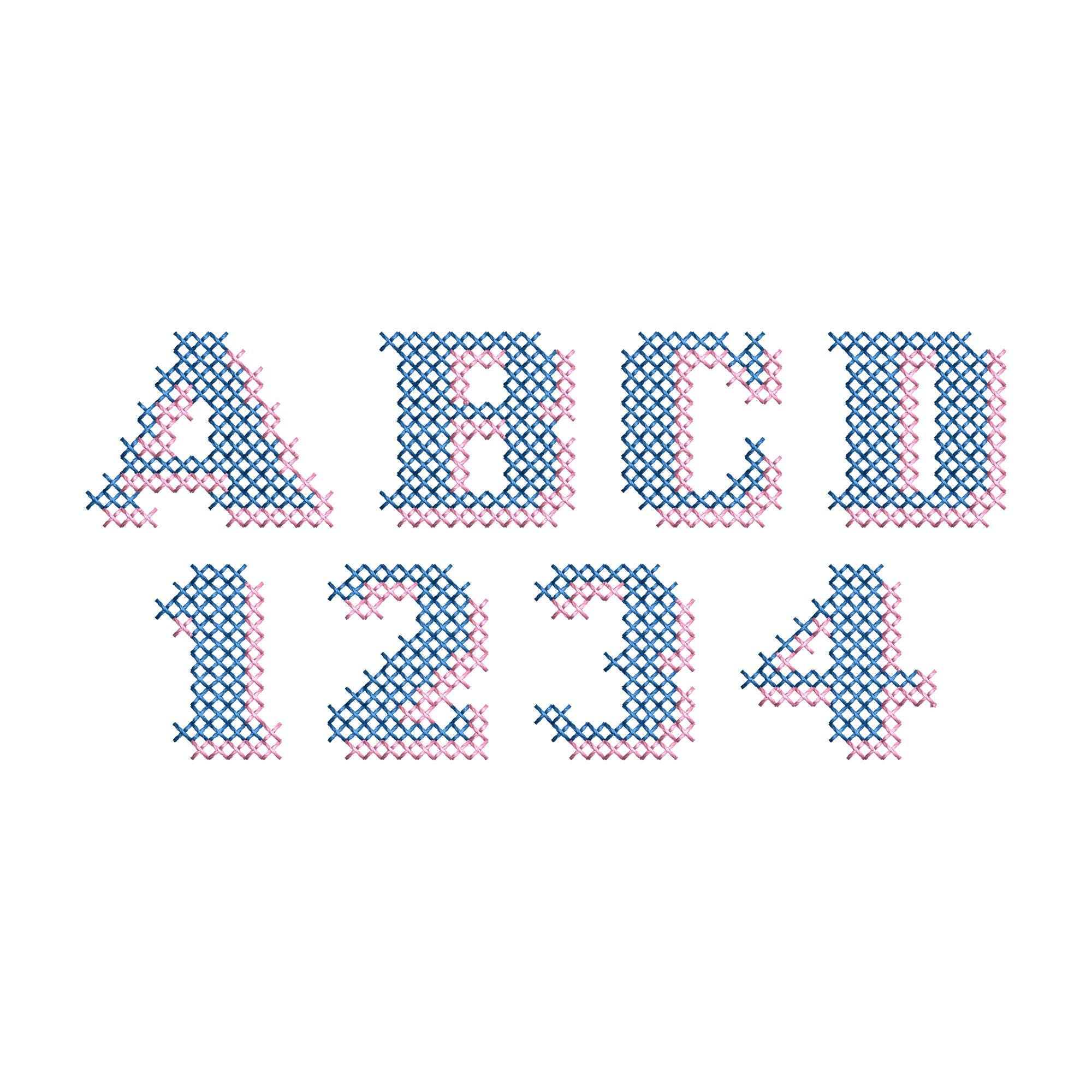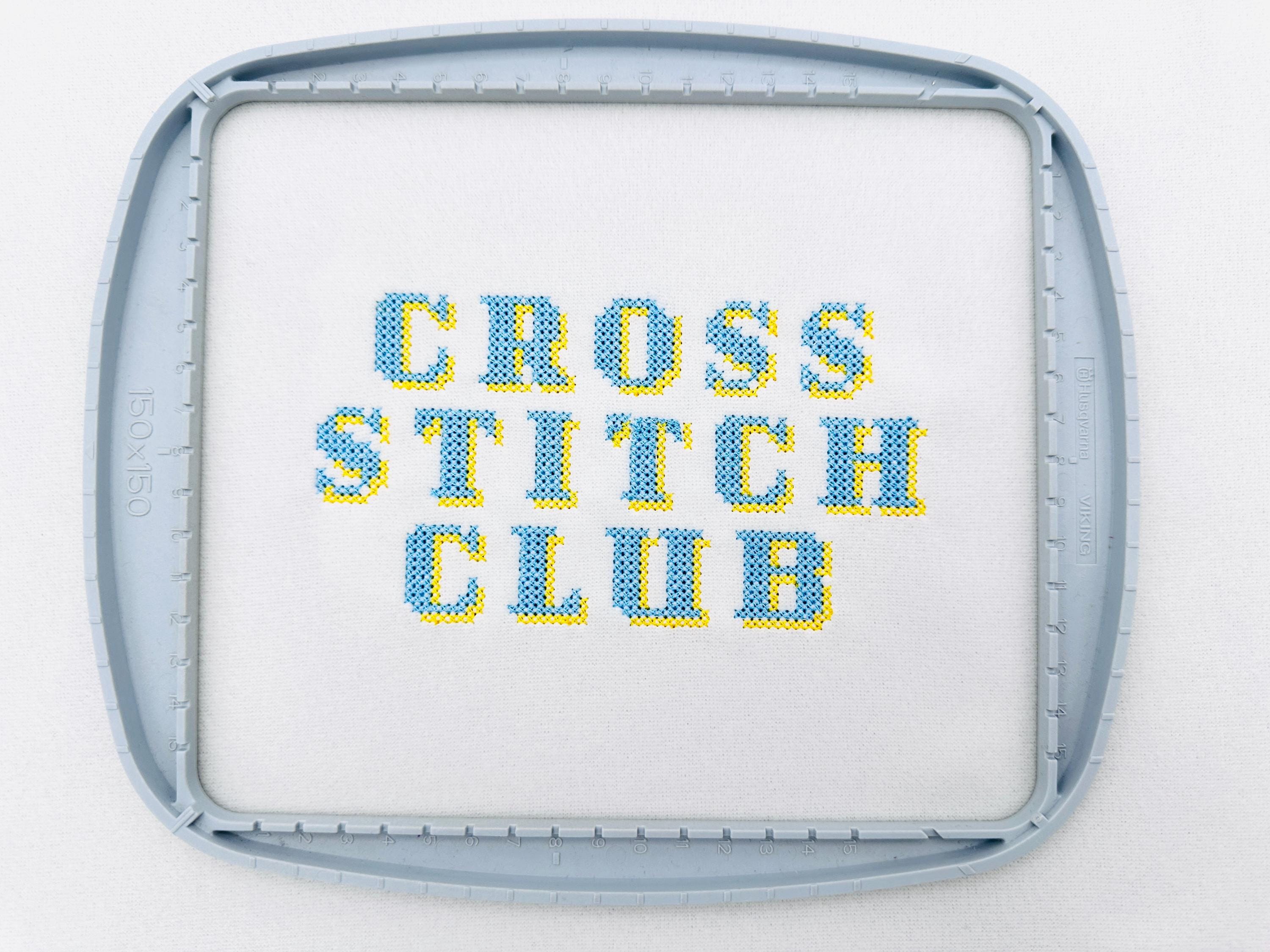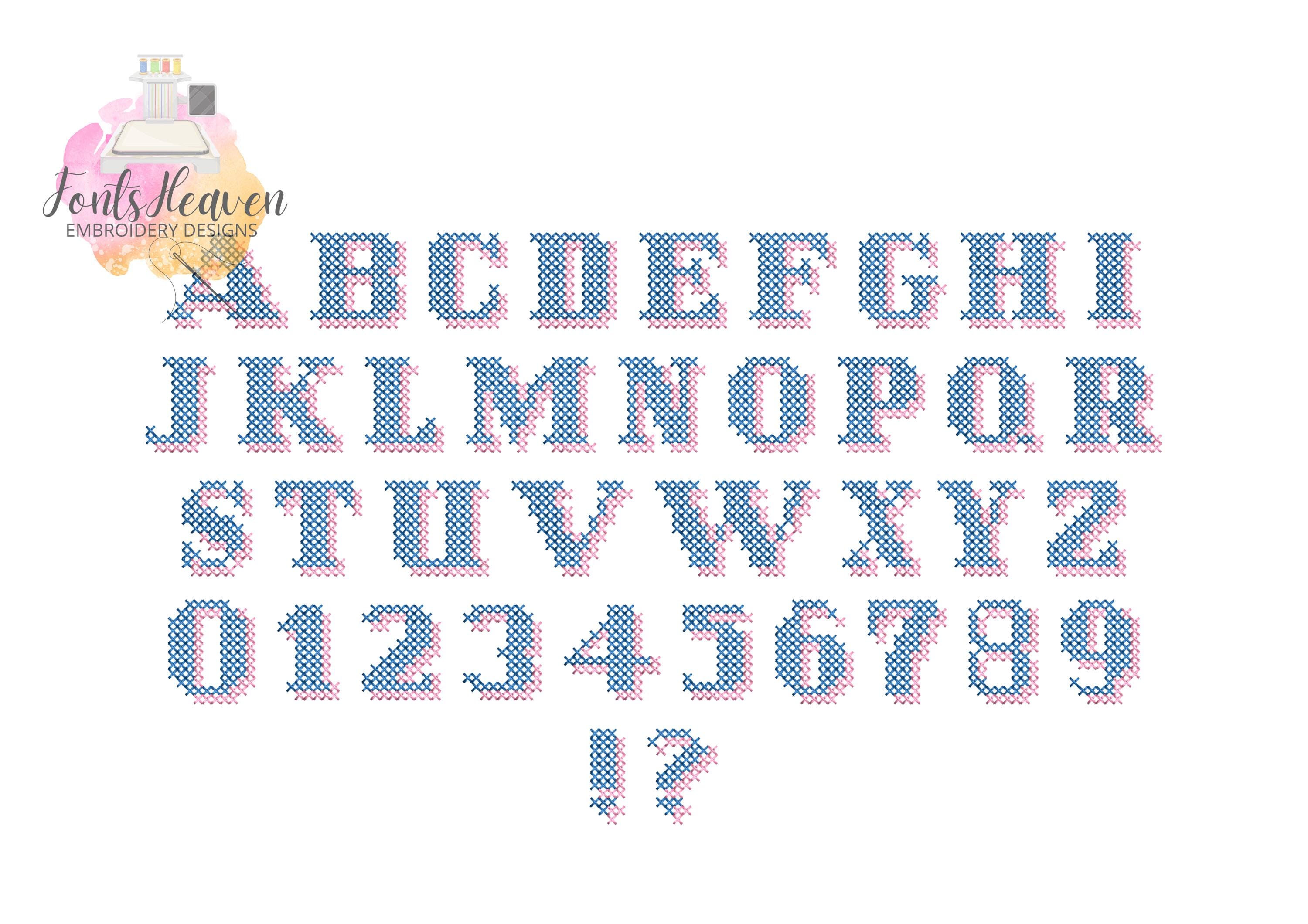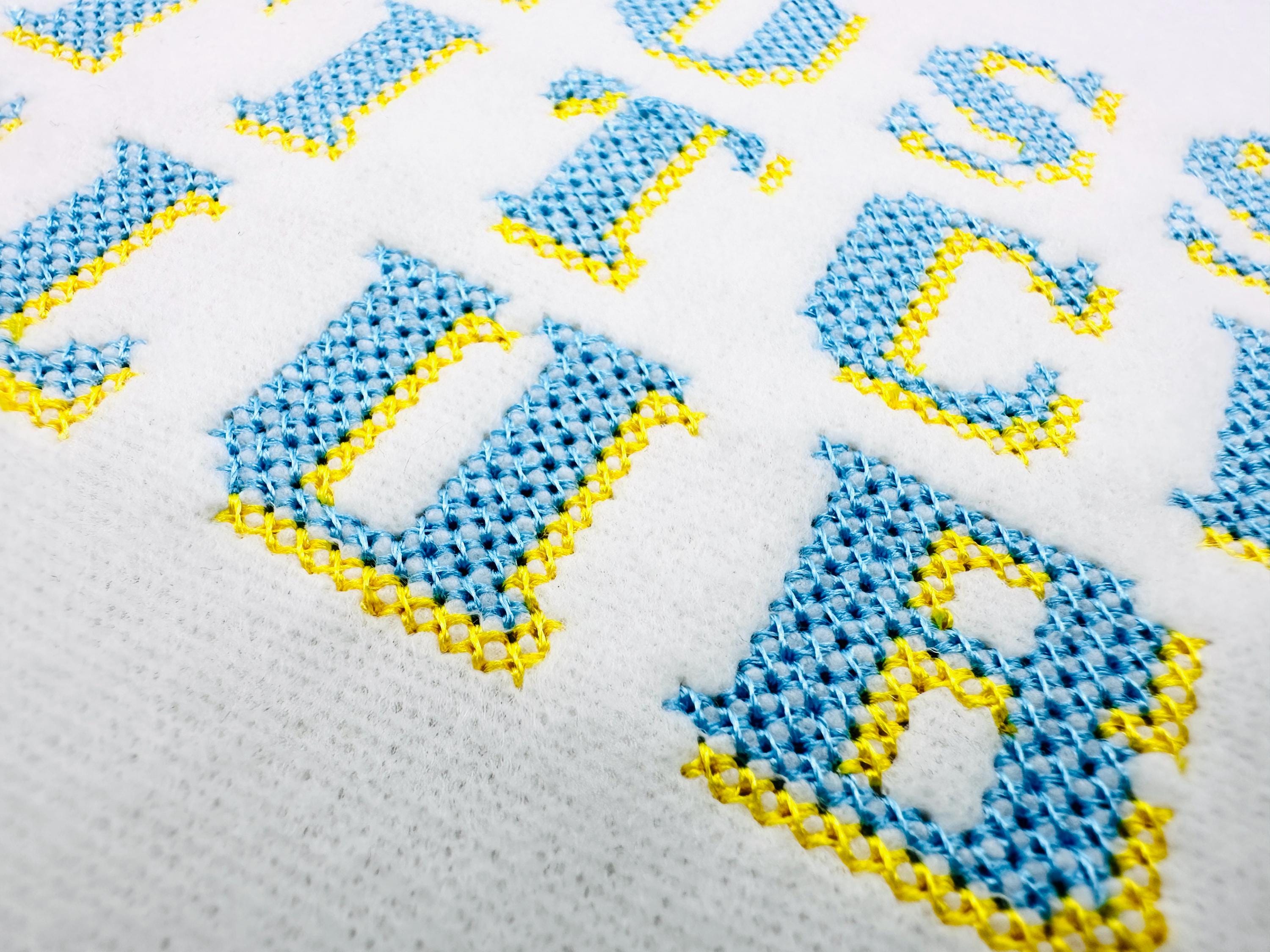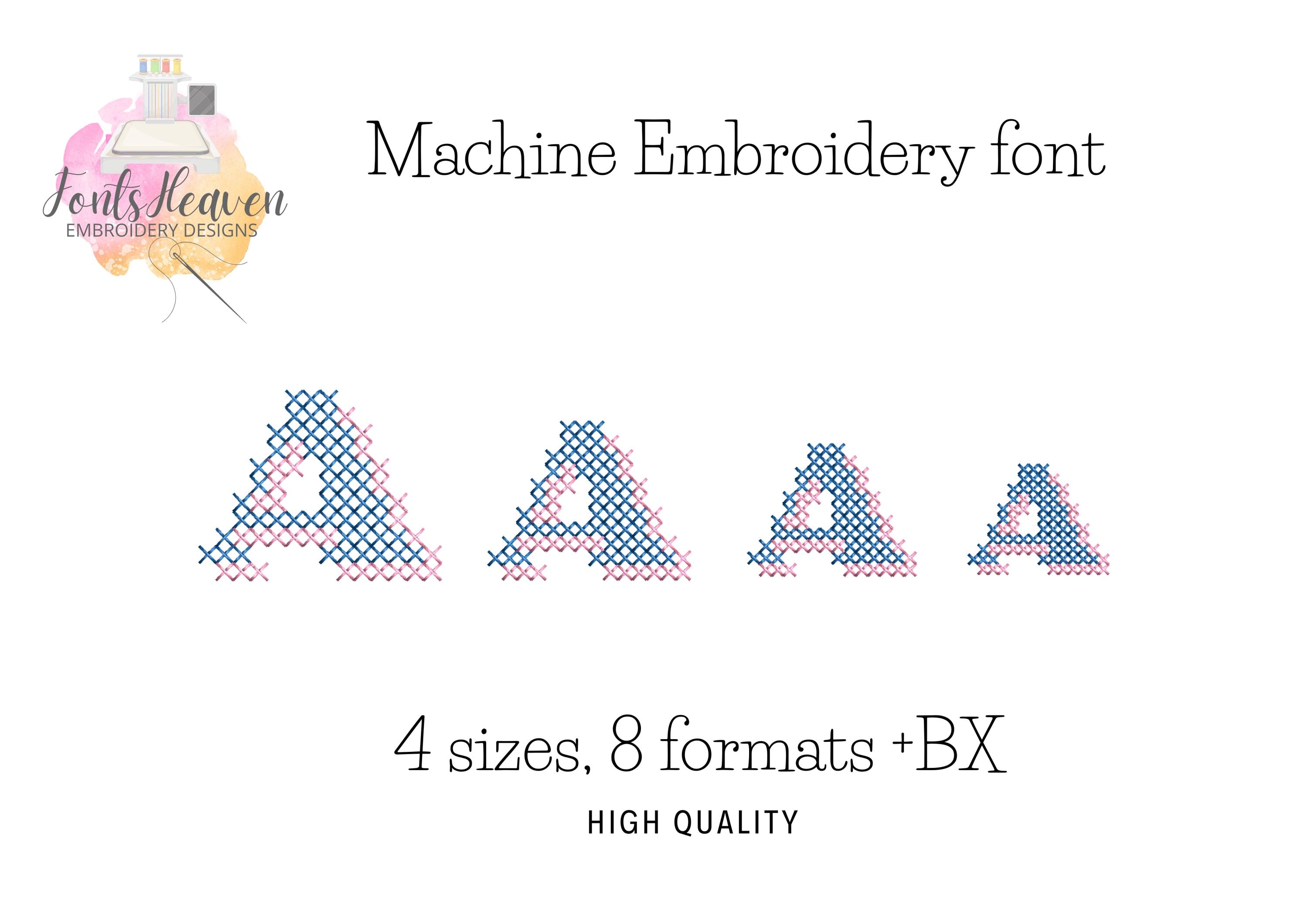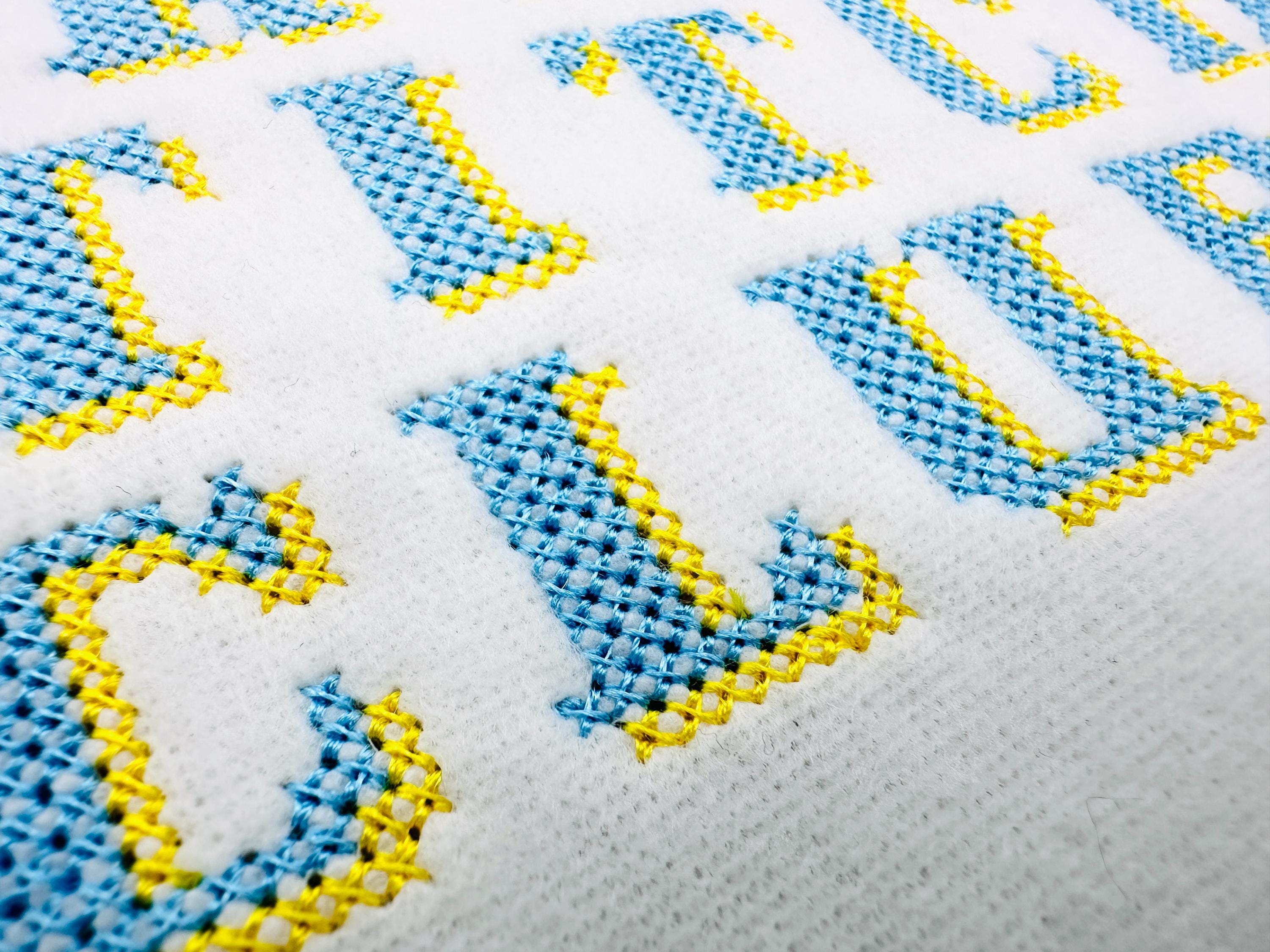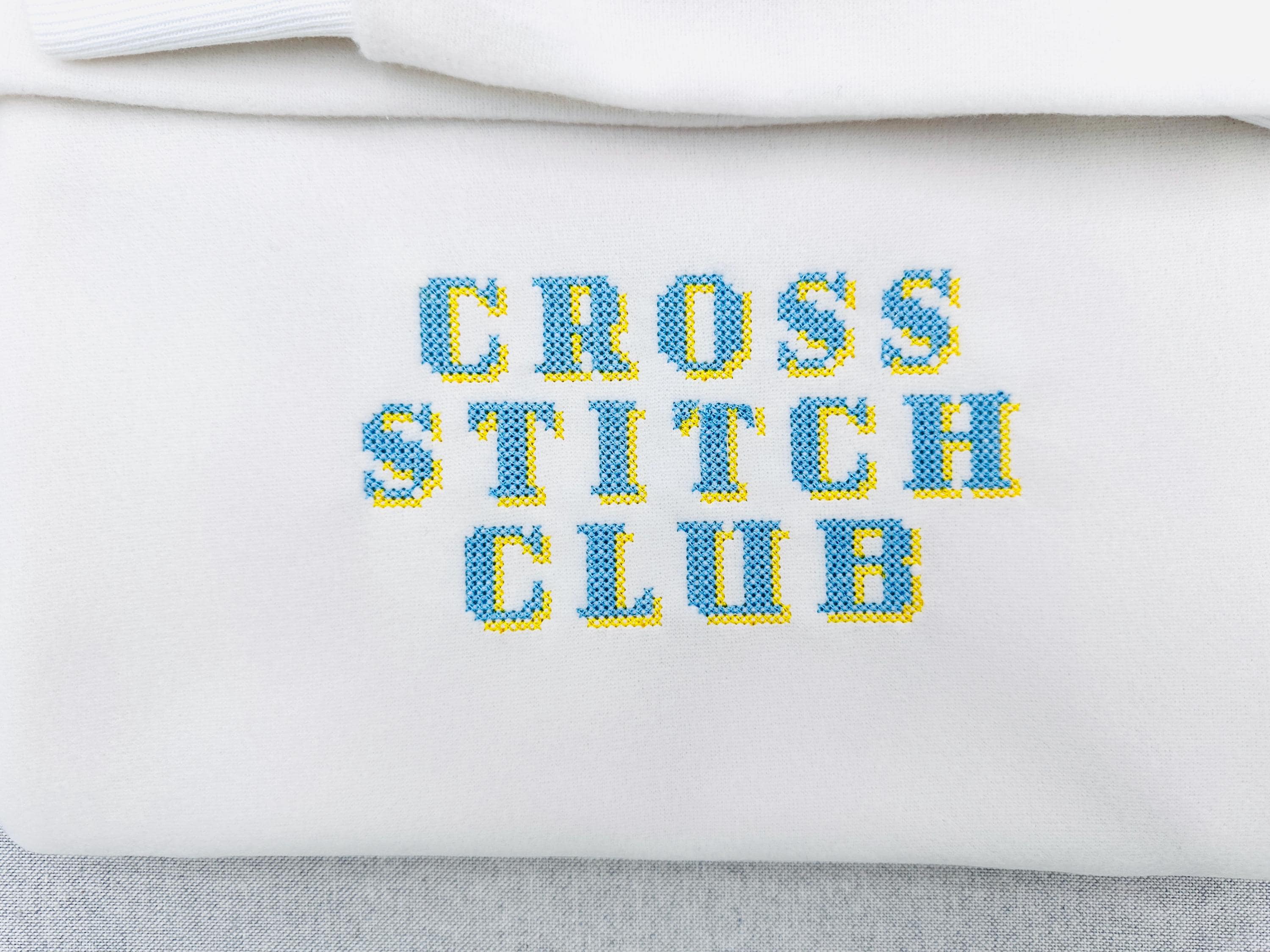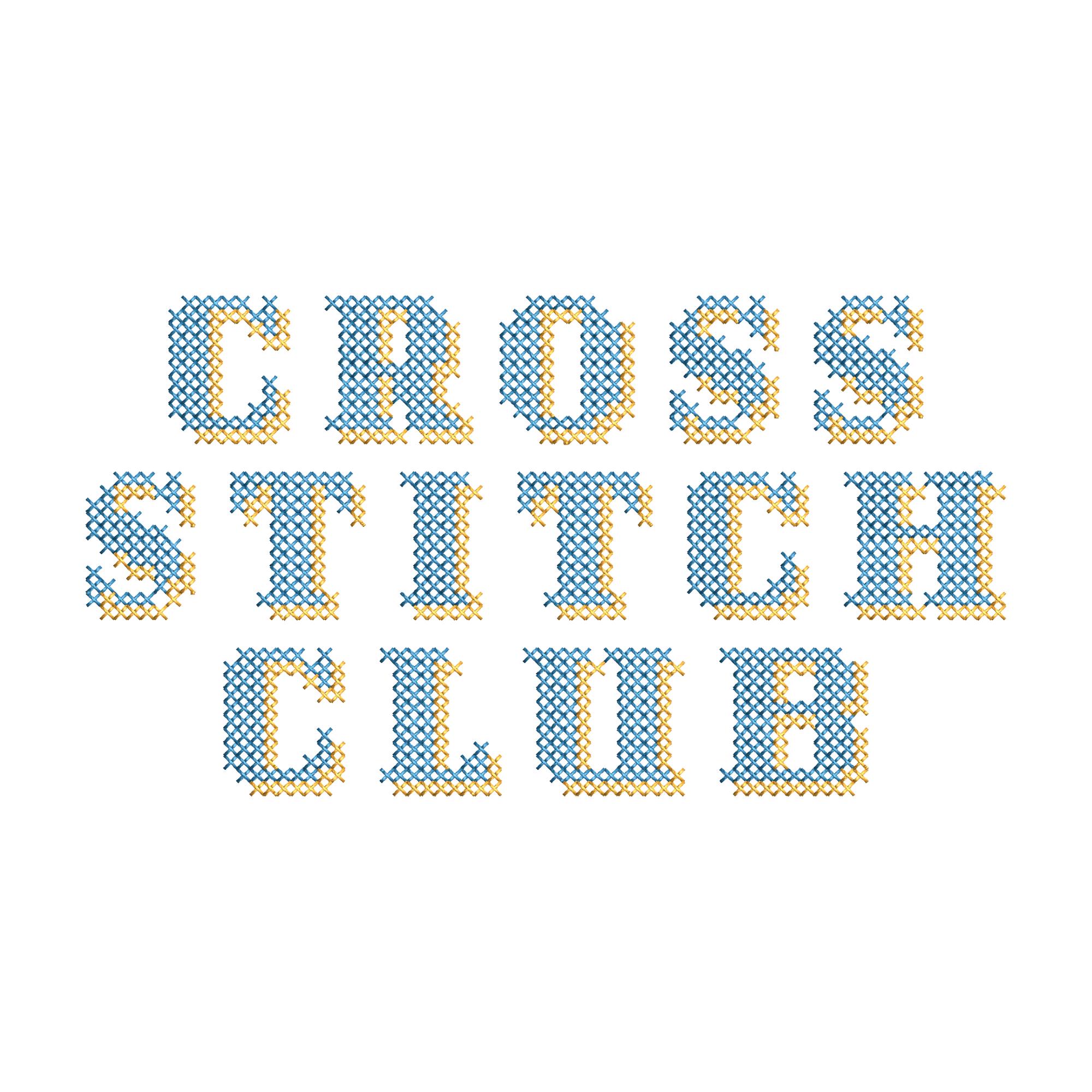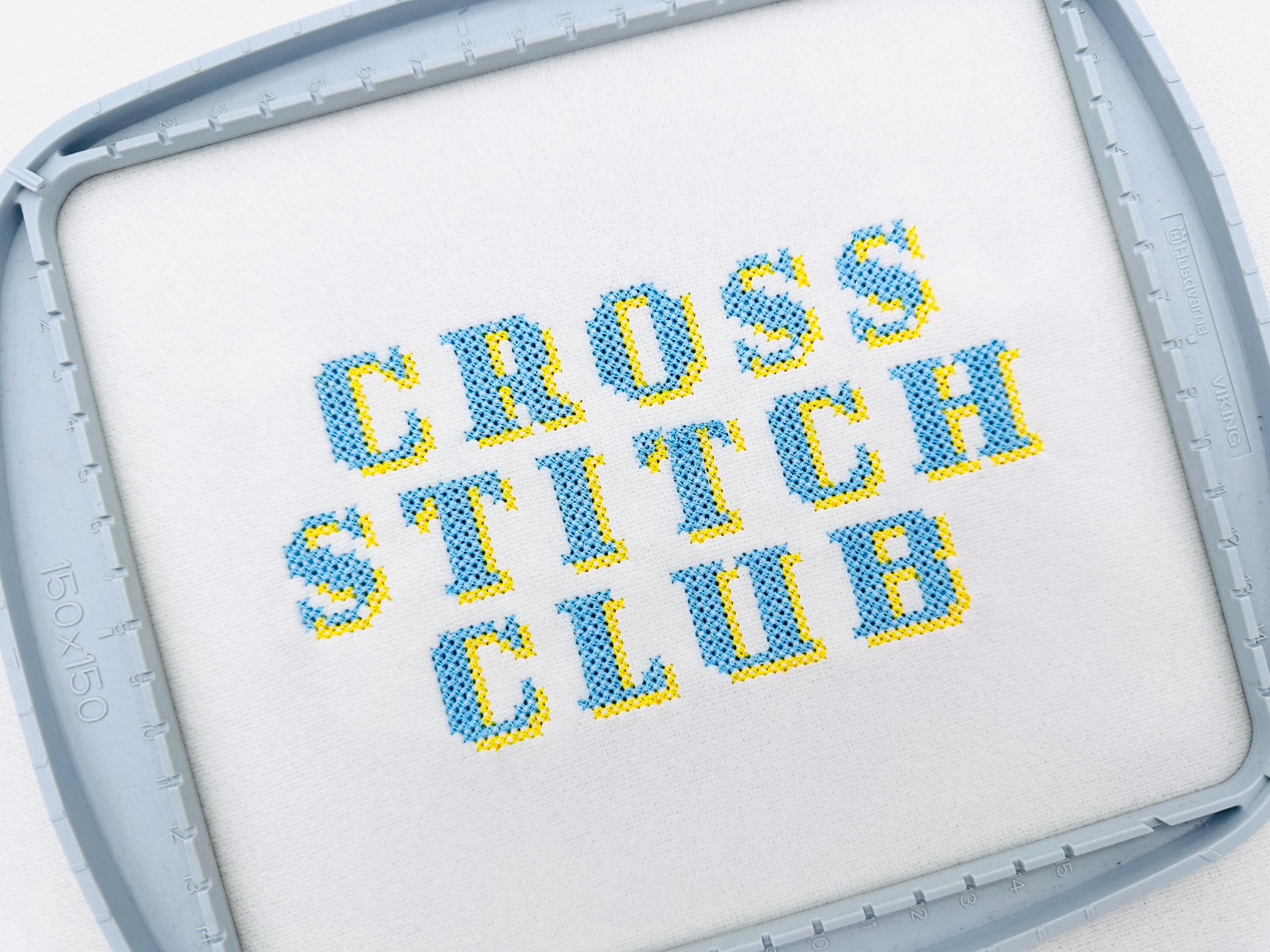
Cross Stitch Shadow FONT authentic bold block style Alphabet folk machine embroidery designs assorted sizes 0.8 up to 1.4 inch, BX
Entire alphabet uppercase letters A-Z, numbers 0-9, and punctuation, as shown in the image.